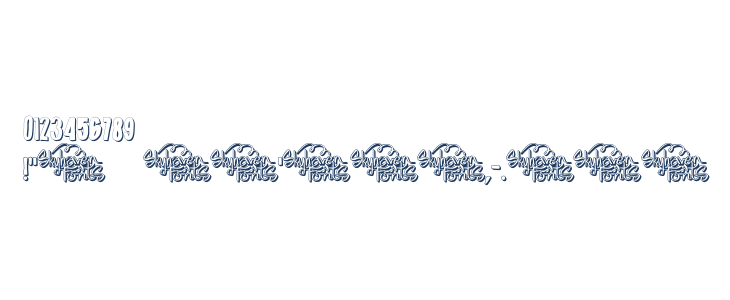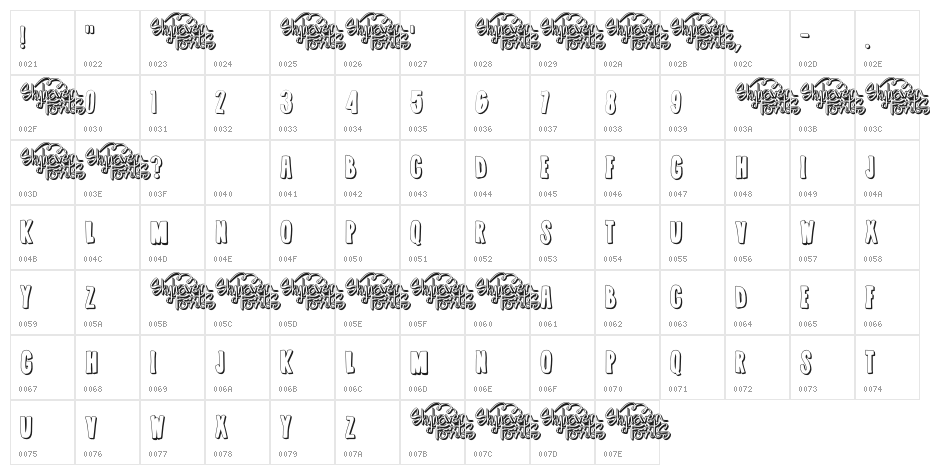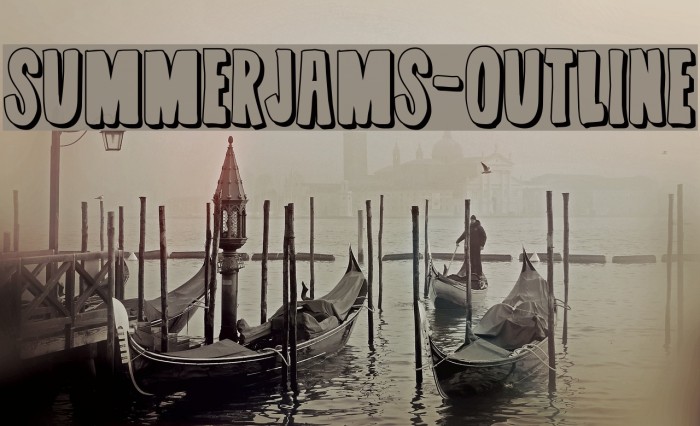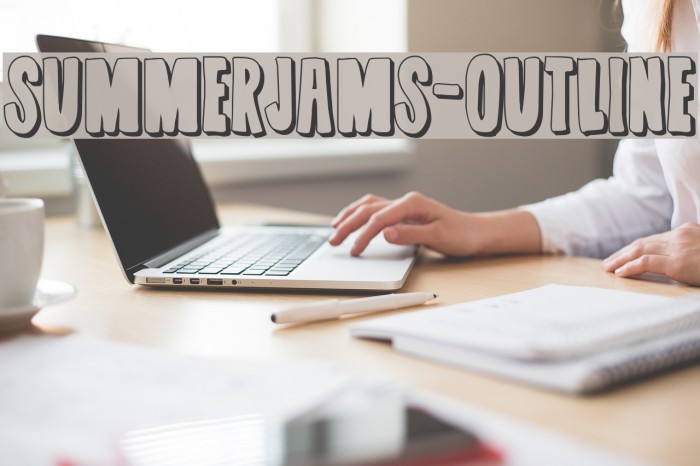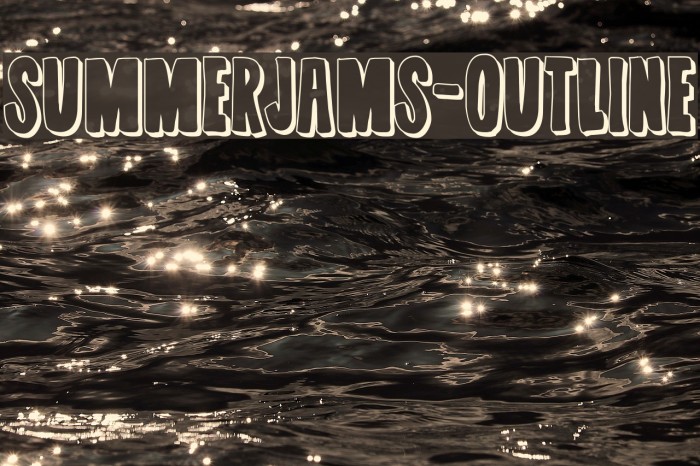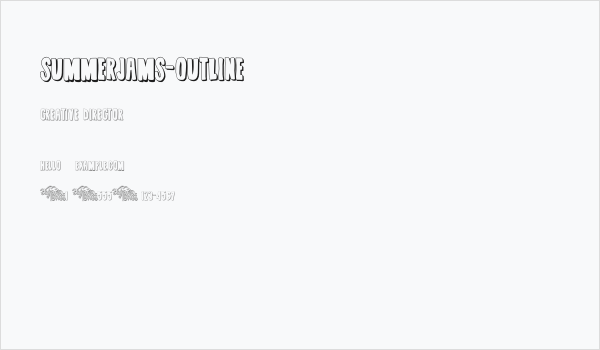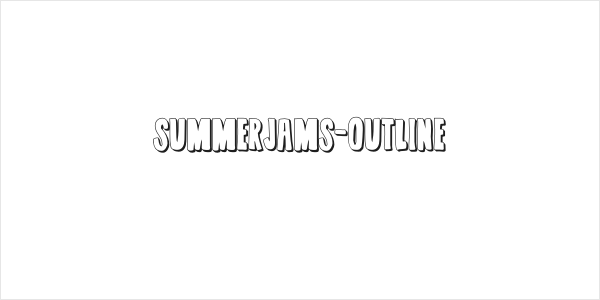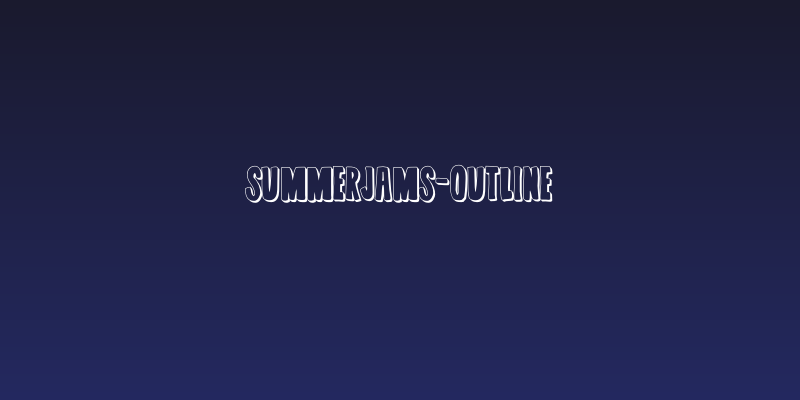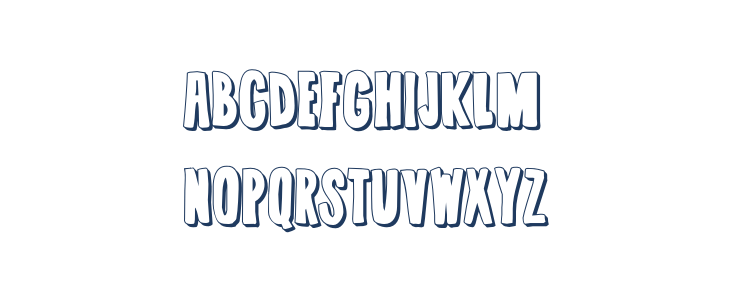
SummerJams-Outline Font
SummerJams-Outline Description
This font features a bold, playful outline style that exudes a fun and energetic vibe. The characters are uppercase and have a thick, rounded outline that gives them a three-dimensional appearance. The strokes are consistent in width, providing a uniform look across all characters. The design is reminiscent of retro or comic book styles, making it ideal for projects that require a lively and informal touch. The numbers and special characters maintain the same playful outline, ensuring consistency throughout any text. This font is perfect for capturing attention and adding a dynamic element to any design.
| Overall Style | Playful, Retro, Comic |
| Proposed Projects | Ideal for posters, comic books, children's books, party invitations, and playful branding. |